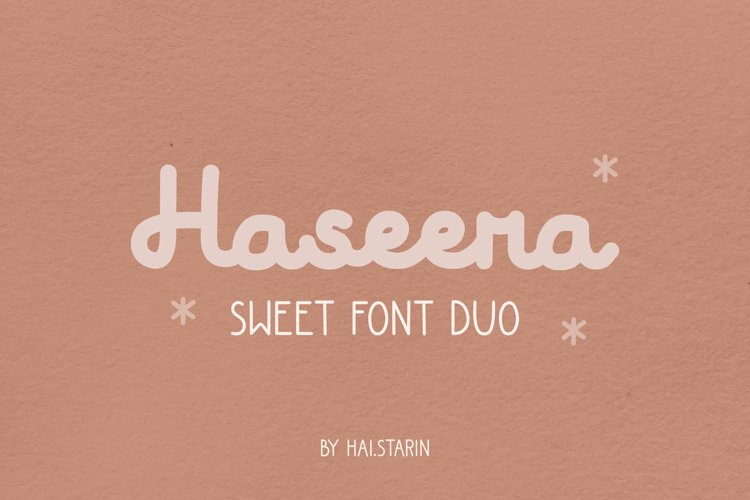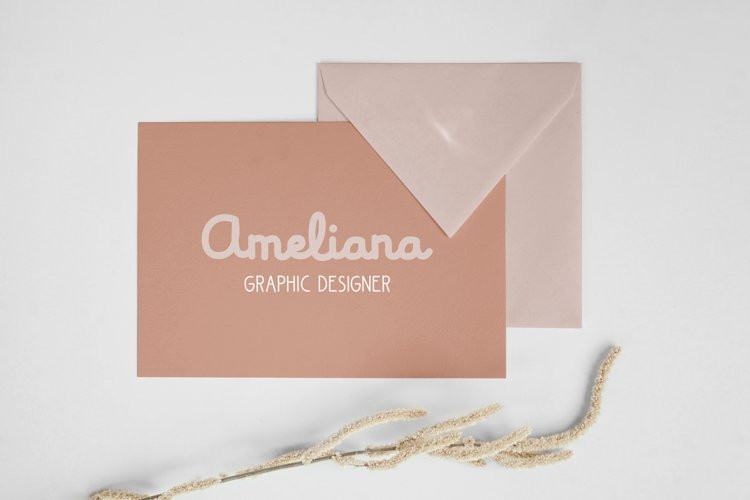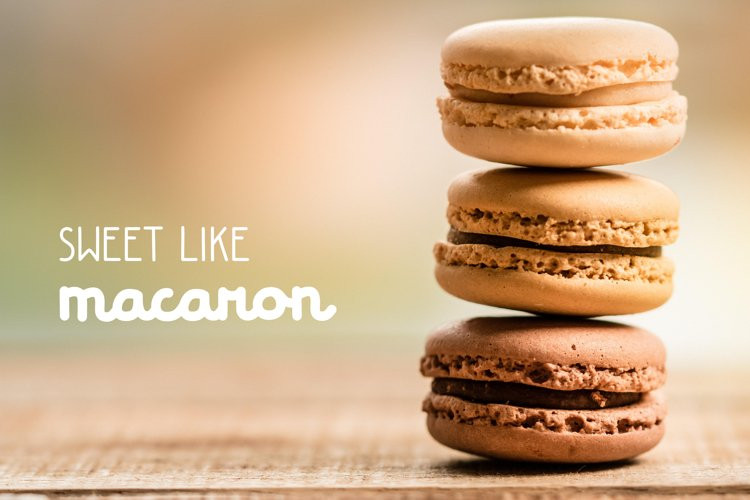
Haseera Font
Haseera FontHaseera is a simple yet sweet font duo. It consists of a bold monoline script font and a thin all-caps sans serif font which look good together. Together or apart, these fonts are perfect for posters, printed quotes, digital designs, or any projects that require a cute look!